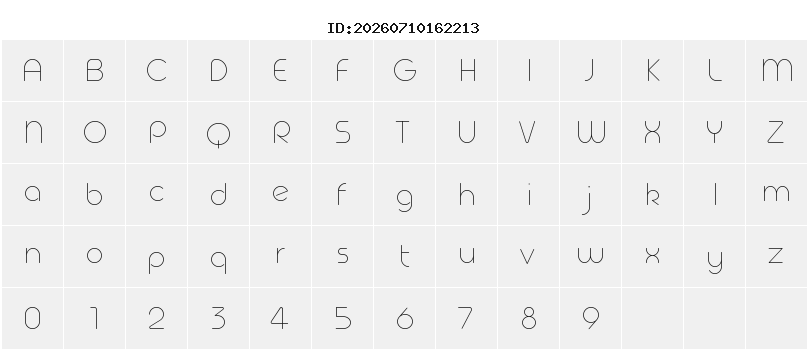
Geoma Thin Demo Preview
About Geoma Thin Demo.otf
Geoma Thin Demo.otf is a modern, elegant sans-serif font designed for ultimate readability and visual harmony. Perfect for branding, headlines, web design, and print materials.